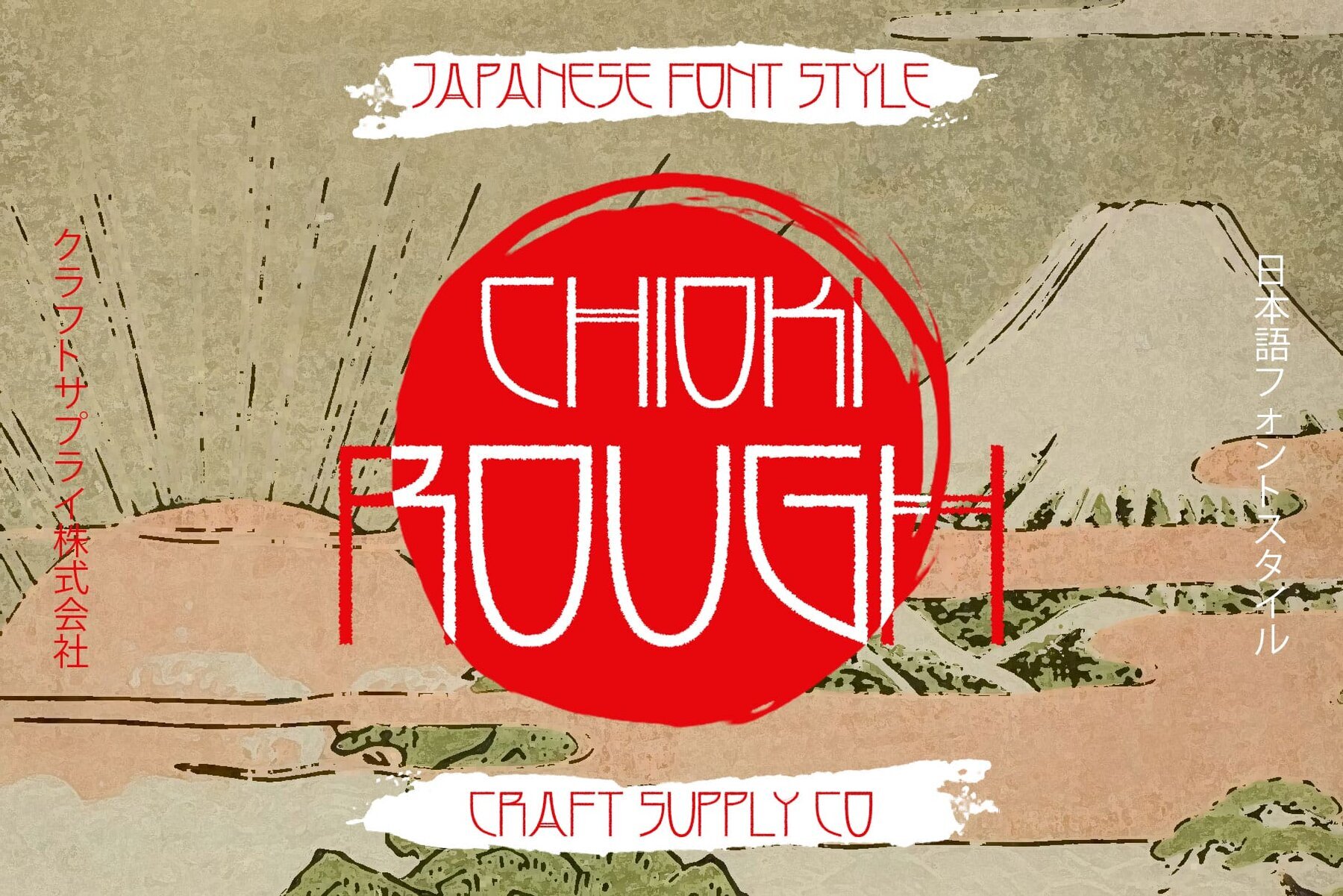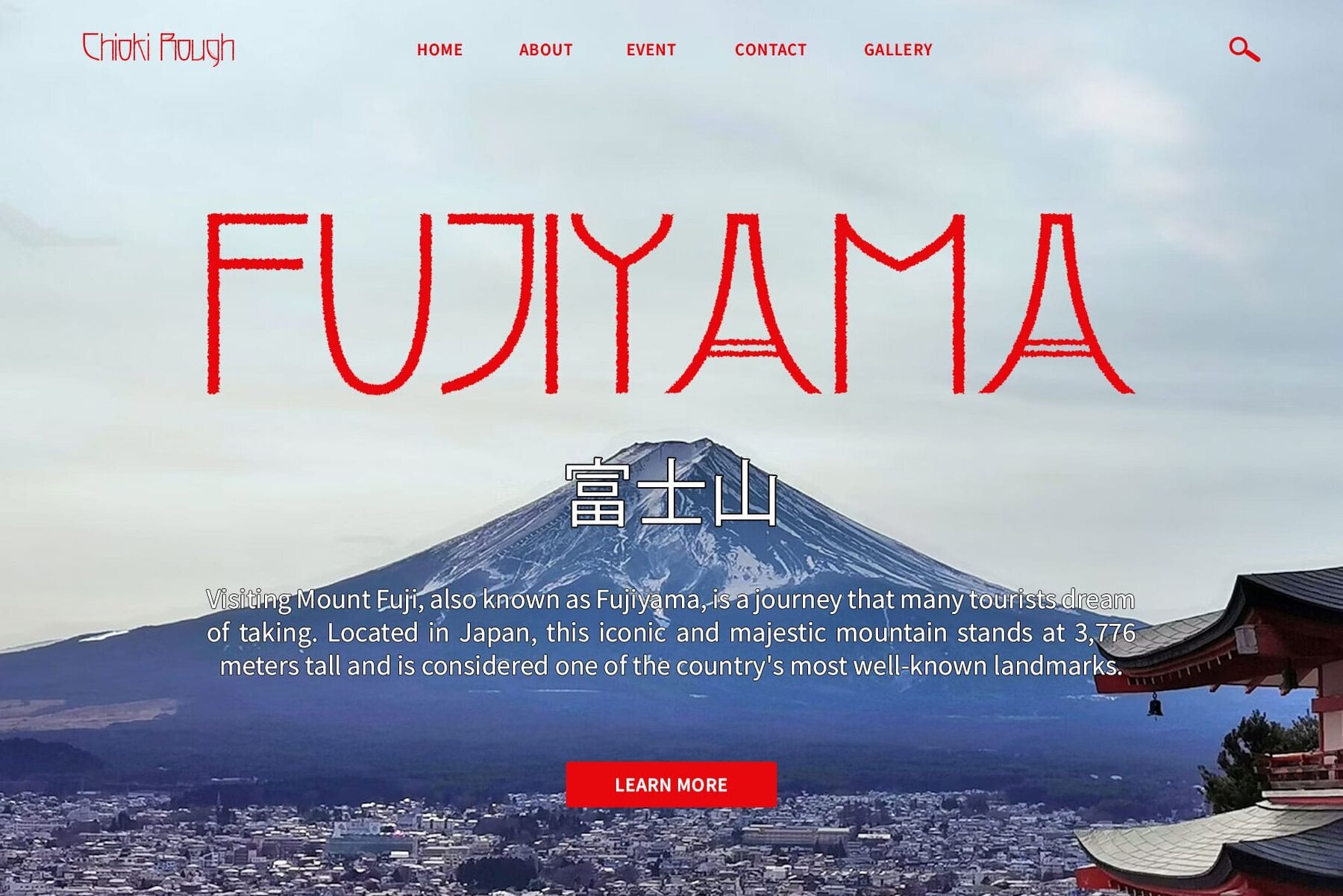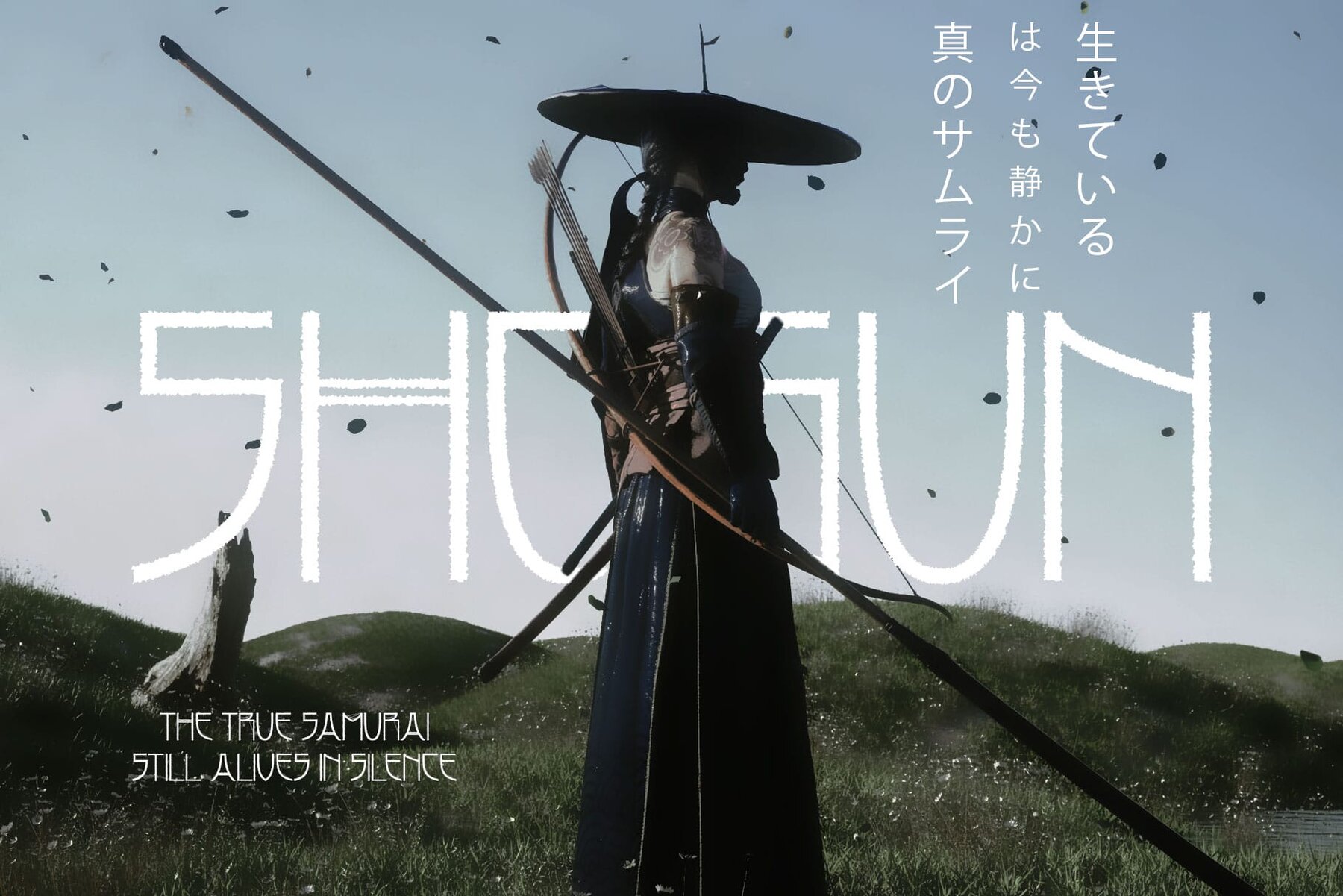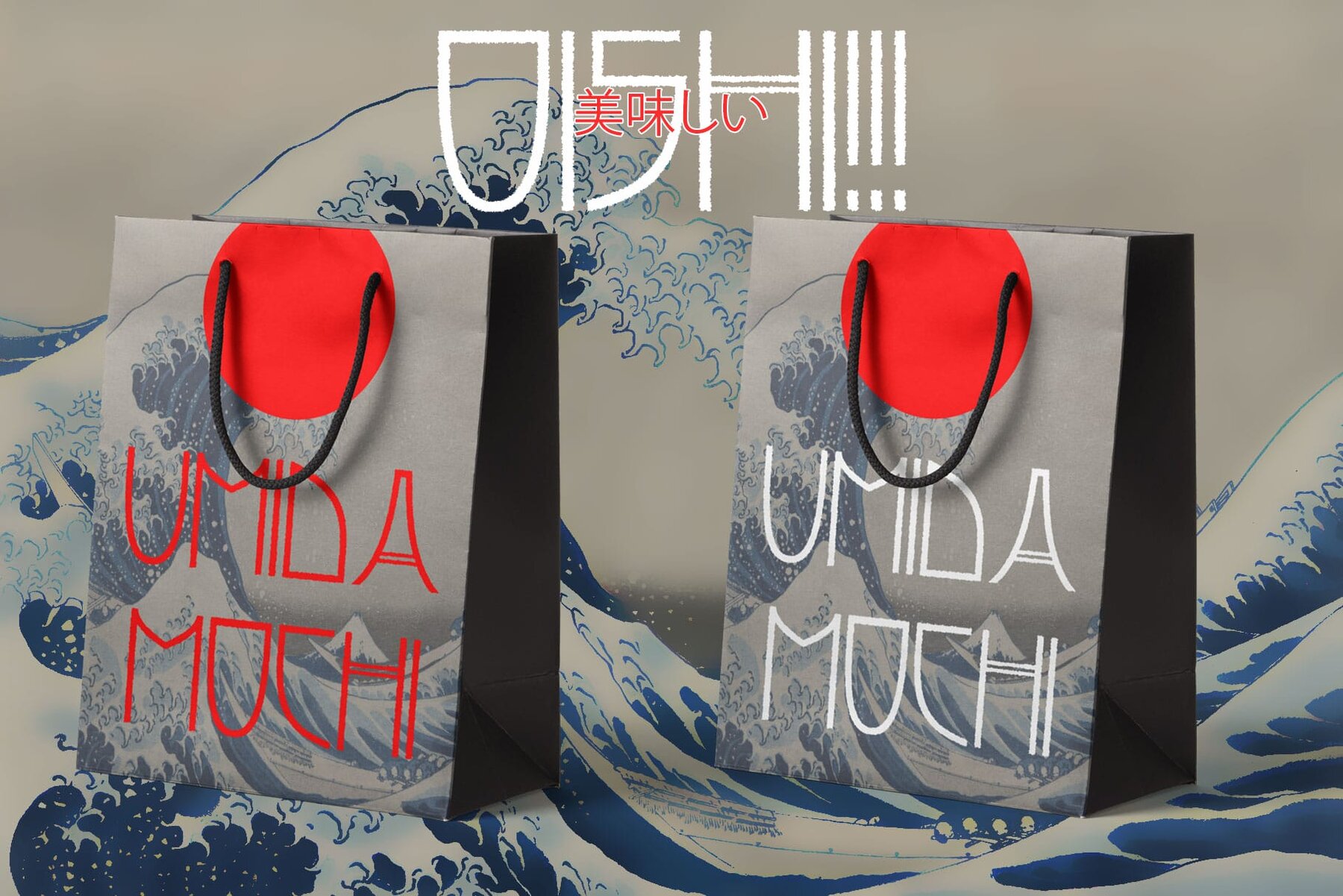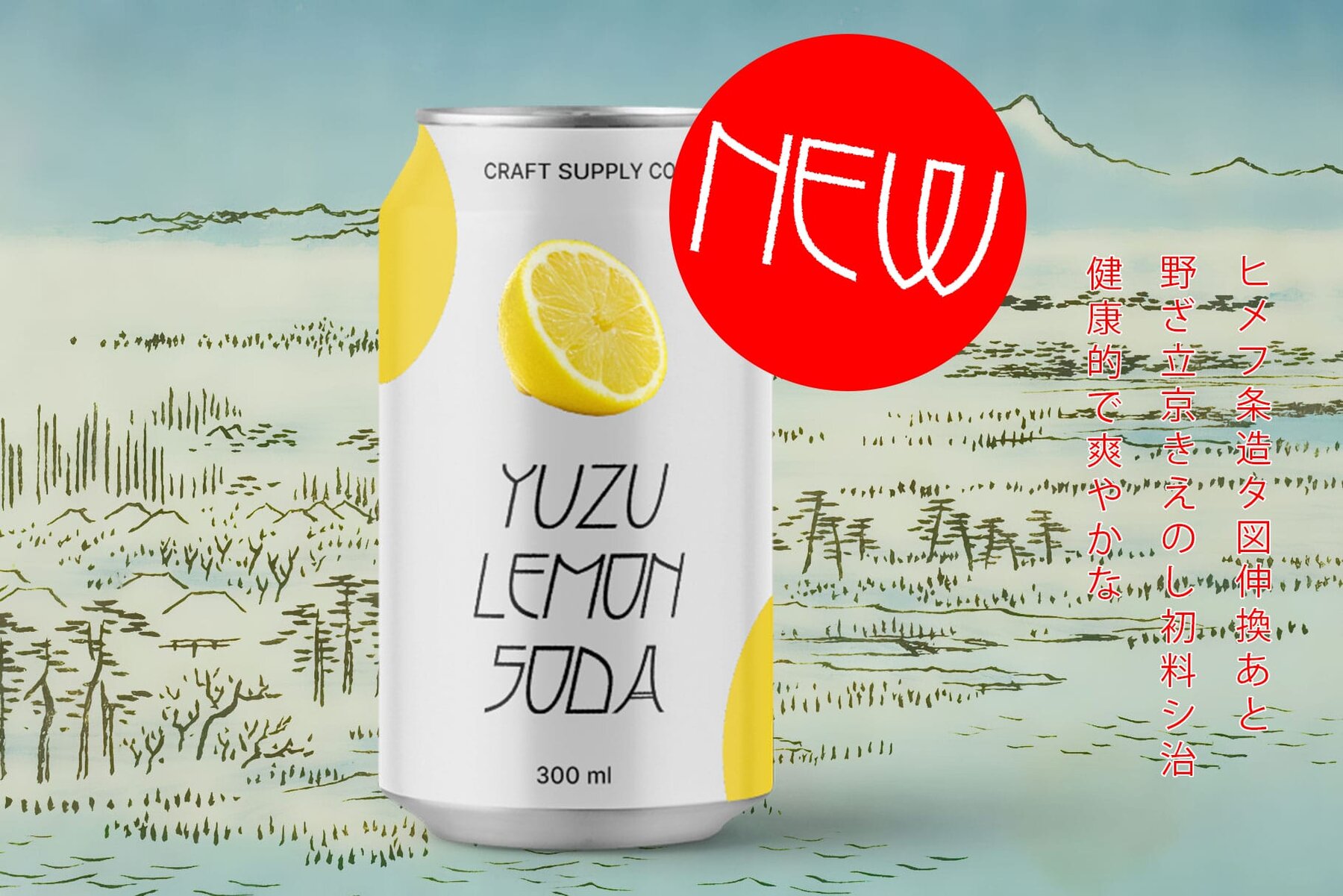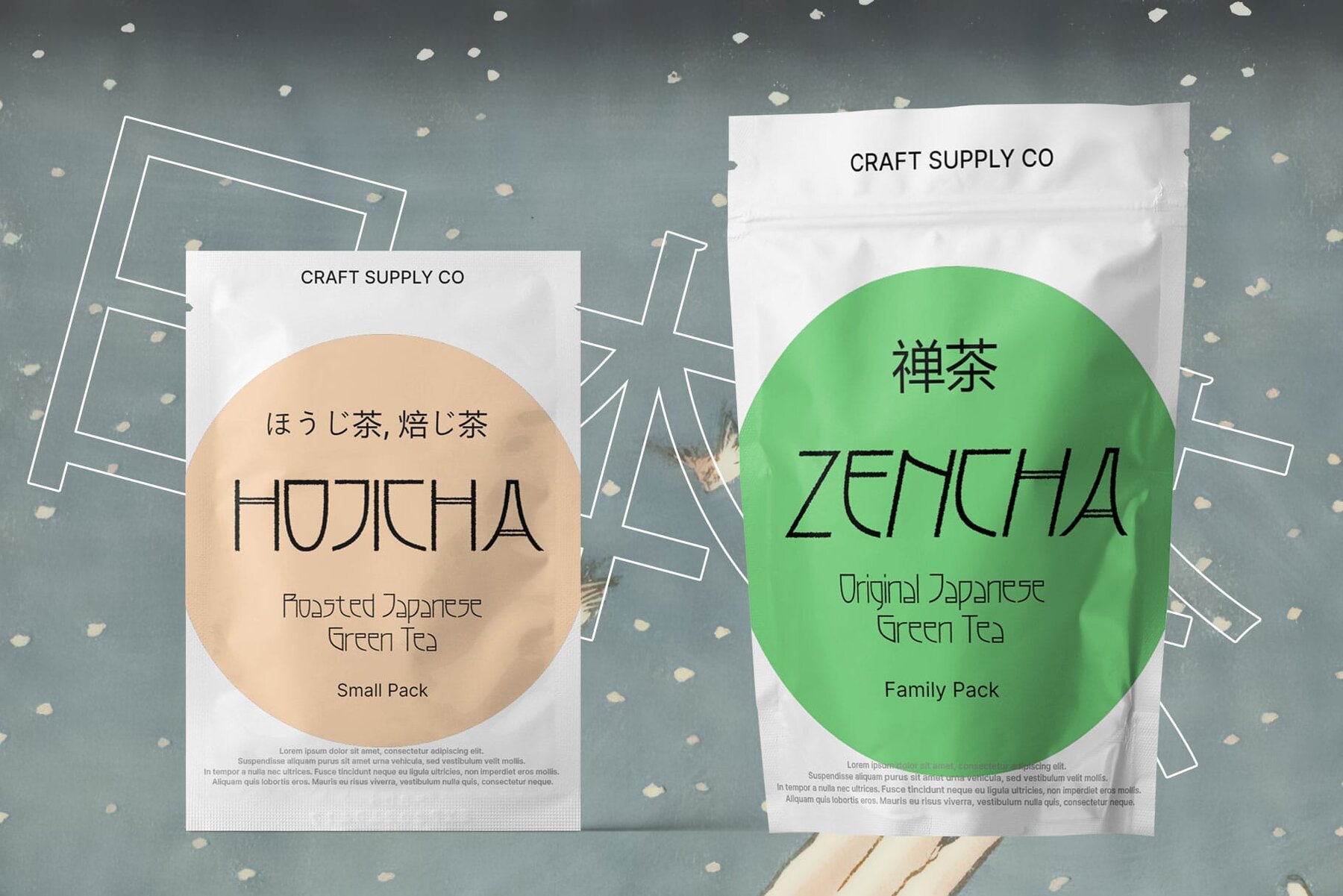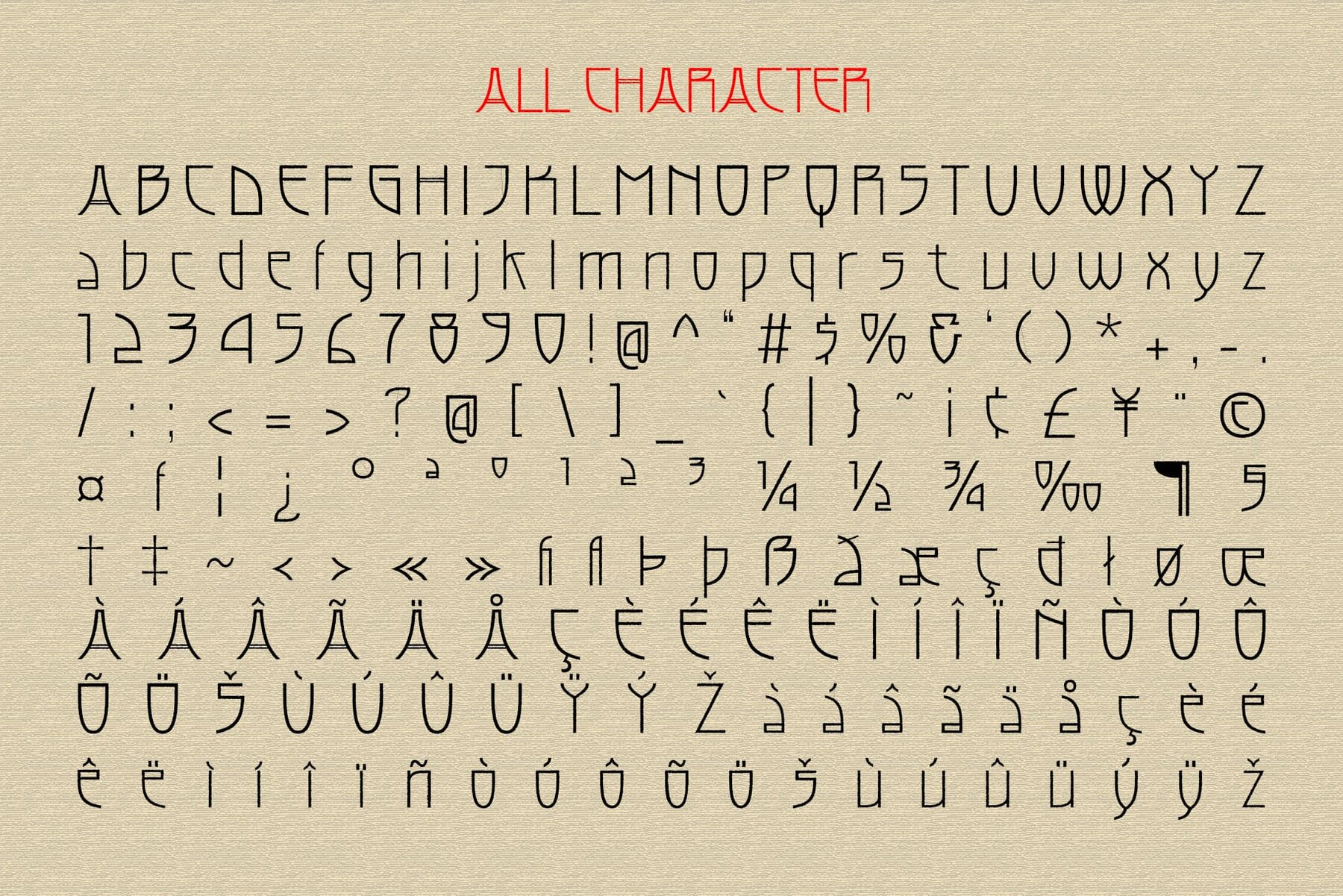
Chioki Rough Font
Chioki Rough seamlessly blends Japanese aesthetics with vintage charm. This sans serif display font, inspired by traditional Japanese letterforms, showcases clean lines and bold shapes, offering a minimalist yet striking design. Enhanced with a rough texture, Chioki Rough provides a weathered, nostalgic look, making it ideal for designs that evoke a sense of authenticity and cultural significance.
Perfect for vintage display applications, Chioki Rough adds a unique and sophisticated flair to posters, logos, headlines, and other prominent design elements. The font includes uppercase and lowercase characters, numerals, punctuation, accents for multilingual support, and PUA encoding, ensuring versatility in various creative projects. Its elegant Japanese influence and vintage appeal make it a captivating choice for designers seeking a distinctive, culturally rich typeface.